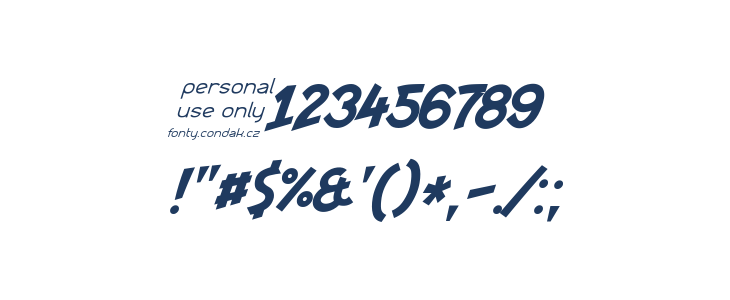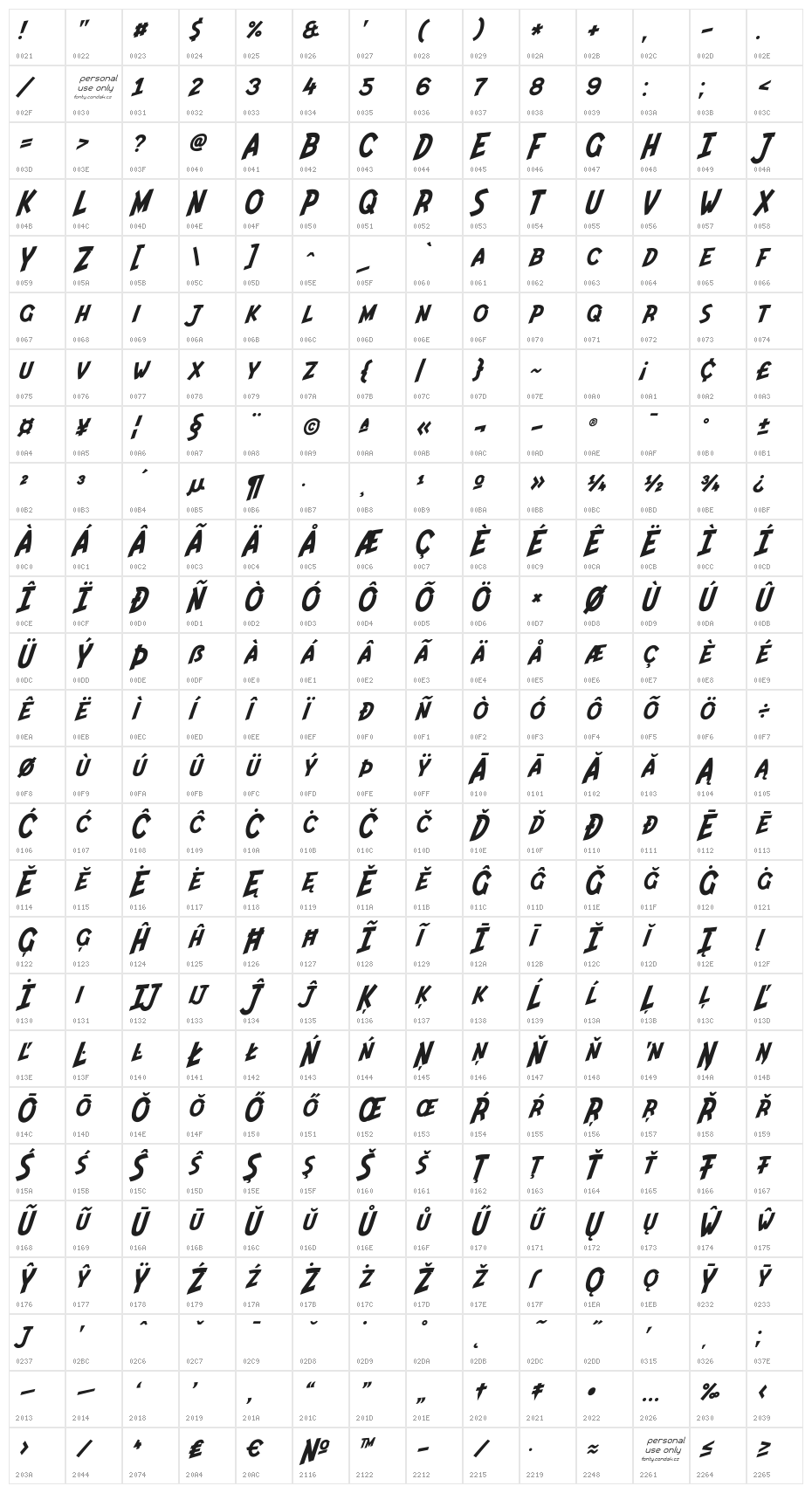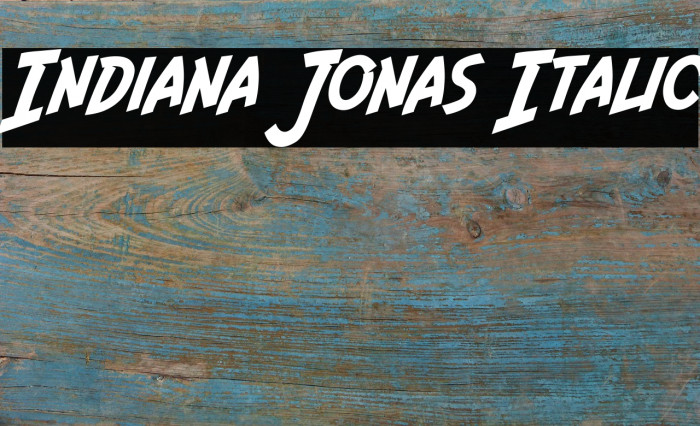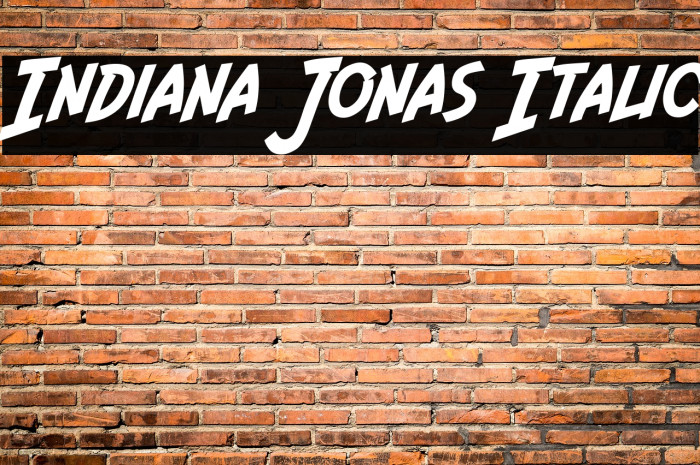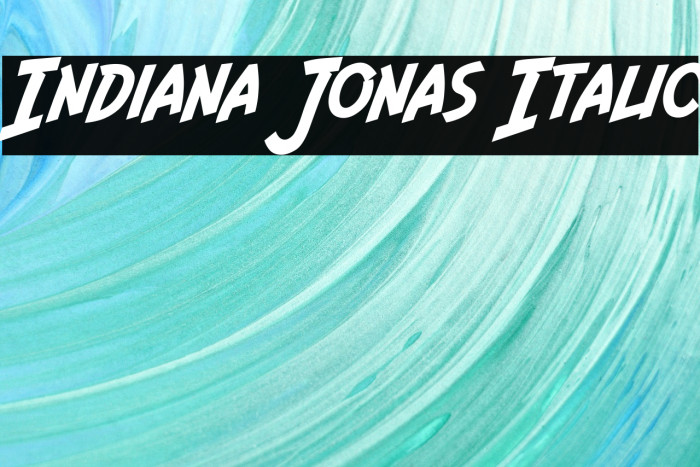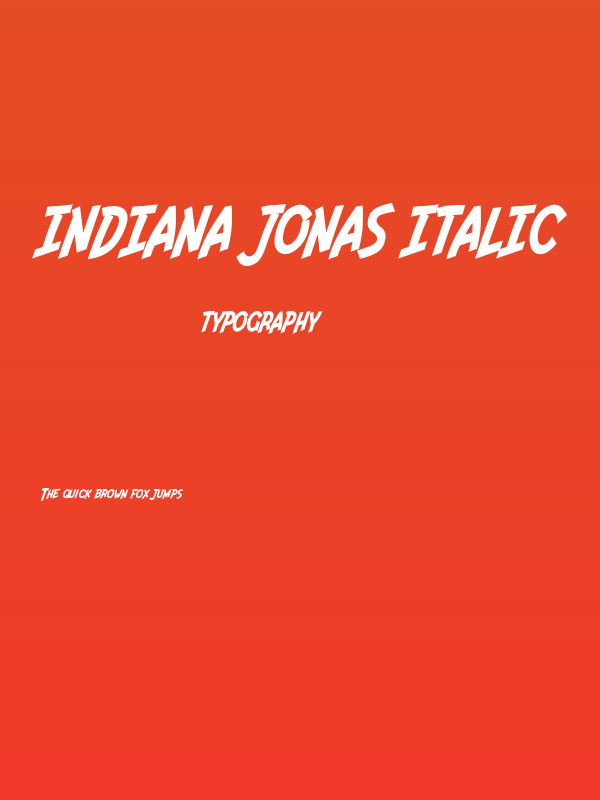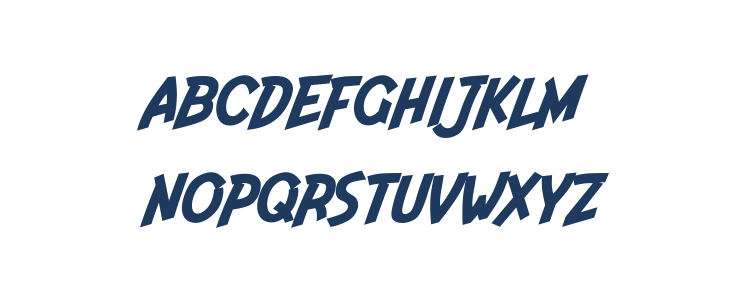
Indiana Jonas Italic Font
Indiana Jonas Italic Description
This font features a bold and dynamic style with a strong italic slant, giving it a sense of motion and energy. The characters are thick and robust, with sharp angles and a slightly condensed form that enhances its boldness. The uppercase letters are particularly striking, with a consistent stroke width that maintains readability while adding a dramatic flair. The lowercase letters complement the uppercase with a similar style, ensuring cohesion across different text cases. The numerals are equally bold, maintaining the same energetic style as the letters. Special characters are included, designed to match the overall aesthetic, making this font versatile for various uses.
| Proposed Projects | Ideal for movie posters, adventure-themed branding, dynamic logos, and eye-catching headlines. |